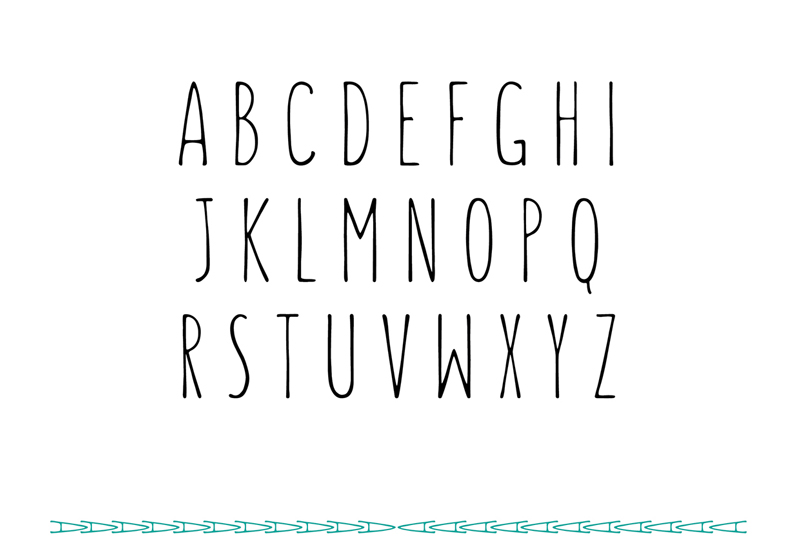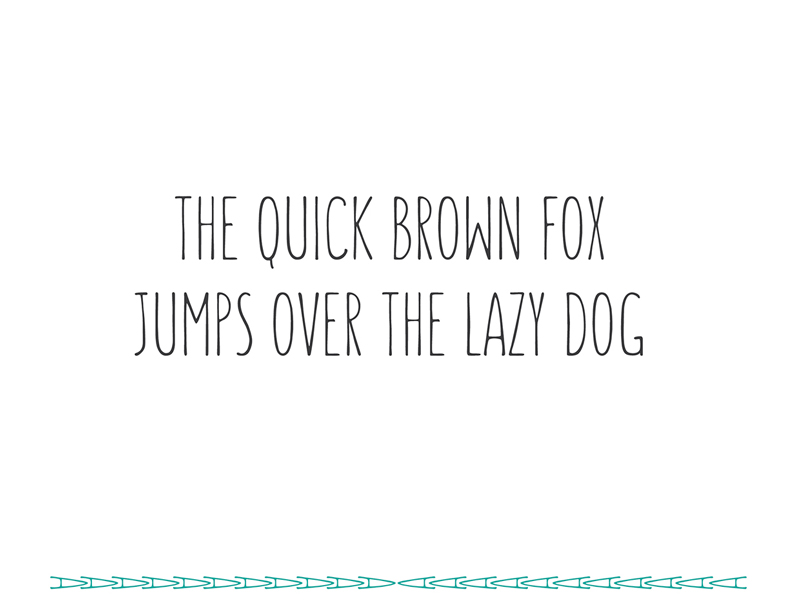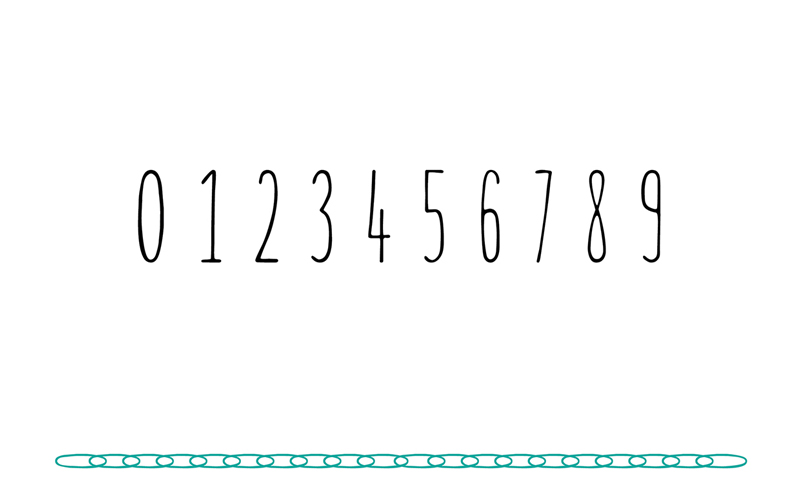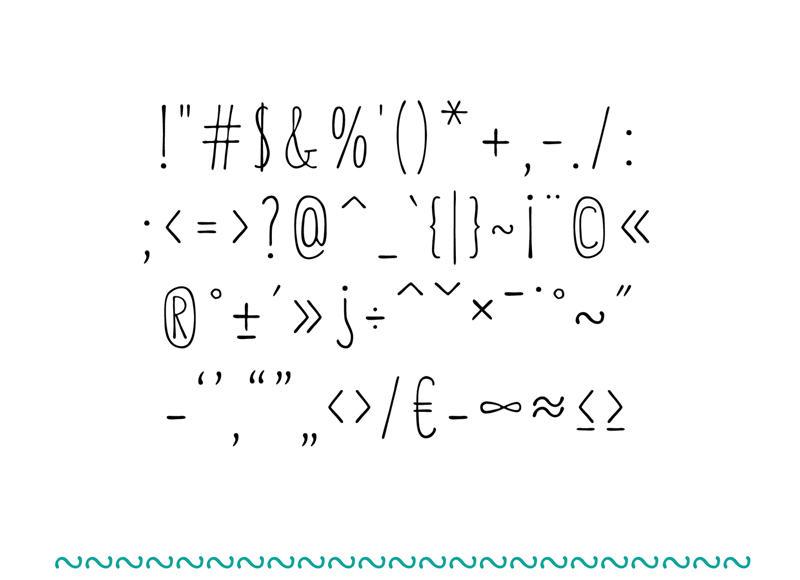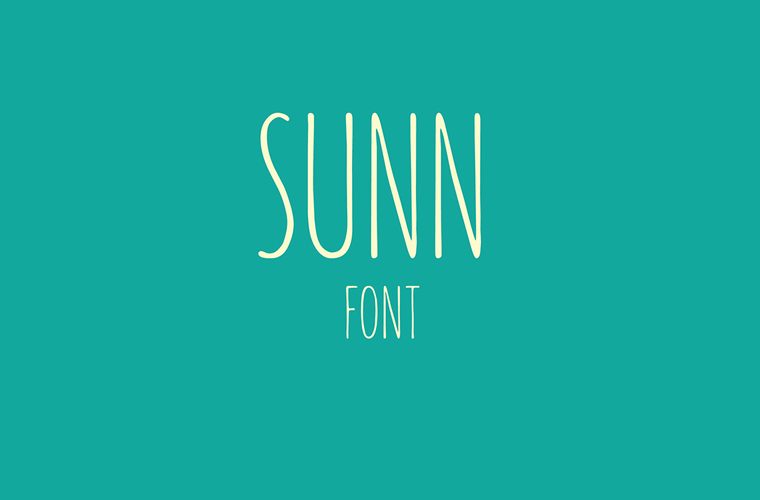
SUNN is a clean, easy-to-read font with tall, slender lines and handwritten-style quirks. Itβs great for headlines and promotional material that calls for a font with a friendly attitude. The SUNN download package includes an OTF (OpenType Font) file that you can install with a click. View the preview images to get a feel of SUNN Font.